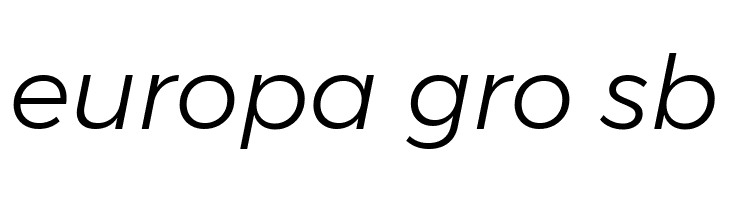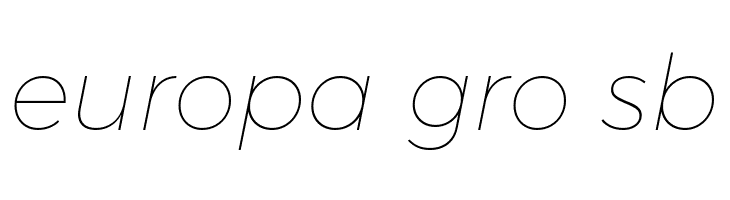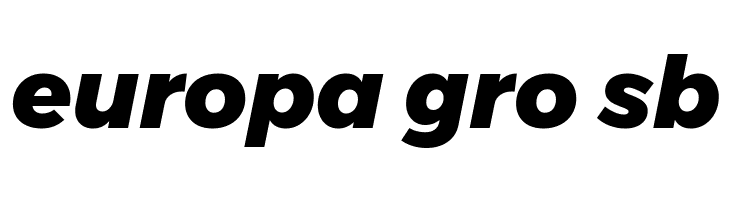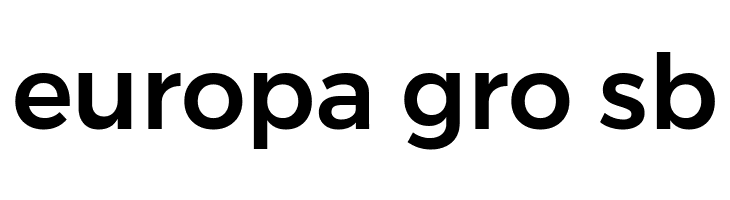
A sleek, modern, light italic sans-serif font with geometric letterforms.
A sleek, modern thin italic font with a minimalist and elegant design.
A modern, geometric sans-serif font with balanced proportions and uniform stroke width.
A modern, medium-weight italic sans-serif font with clean lines and subtle elegance.
A bold, modern typeface with clean, geometric lines and strong presence.
A modern, semi-bold, italic sans-serif font with a dynamic and elegant style.
A modern, light sans-serif font with a clean and minimalist design.
A modern, geometric sans-serif font with thin, uniform strokes.
A bold, italicized typeface with a modern and dynamic style.
A modern, geometric sans-serif font with balanced proportions.